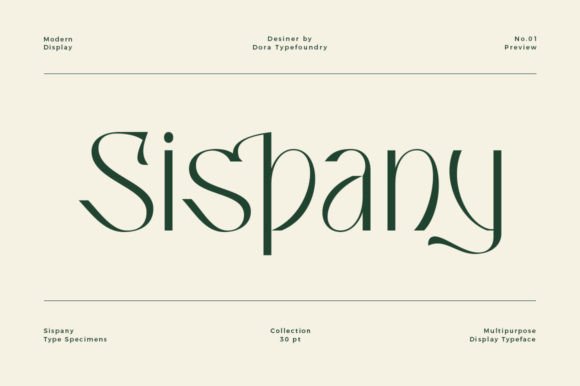
**Introducing Sispany: The Epitome of Sophistication and Elegance for Your Design Endeavors**
Unleash the captivating charm of Sispany, a display font that will elevate your designs to new heights. Its contemporary and fresh aesthetic seamlessly blends sophistication with a touch of playfulness, making it the ideal companion for any creative endeavor you embark upon.
With Sispany at your fingertips, your designs will radiate an air of refined elegance. Its graceful lines and captivating curves will add a touch of luxury to your creations, whether you're crafting stunning logos, captivating posters, or unforgettable packaging designs.
Beyond its visual appeal, Sispany boasts exceptional versatility, adapting effortlessly to a myriad of design styles. From classic to contemporary, from minimalist to ornate, this font possesses the remarkable ability to complement and enhance any vision you may envision.
**Why Sispany is the Perfect Font Choice for Your Creative Projects:**
* **Unleash Your Inner Artistry:** Sispany empowers you to express your creativity without limitations. Its vast repertoire of glyphs and alternates, accessible with ease thanks to its PUA encoding, grants you unparalleled control over your designs.
* **Make a Statement with Confidence:** Sispany's bold and distinctive character ensures your designs will leave a lasting impression. Whether you seek to convey a sense of timeless elegance or cutting-edge modernity, this font has the power to make your vision a reality.